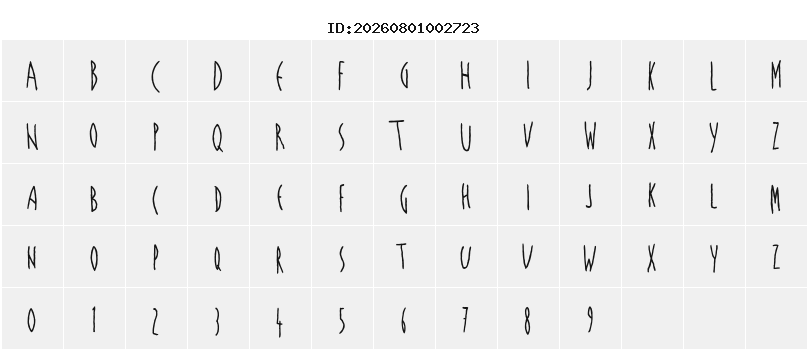
Las Bonitas Preview
• Font Name: Las Bonitas
• Font ID: DTP-LasBonitas-Bold
• Full Font Name: Las Bonitas Bold
• PostScript Name: LasBonitas-Bold
• Character Count: 217
About Las Bonitas.ttf
Las Bonitas.ttf is a modern, elegant sans-serif font designed for ultimate readability and visual harmony. Perfect for branding, headlines, web design, and print materials.